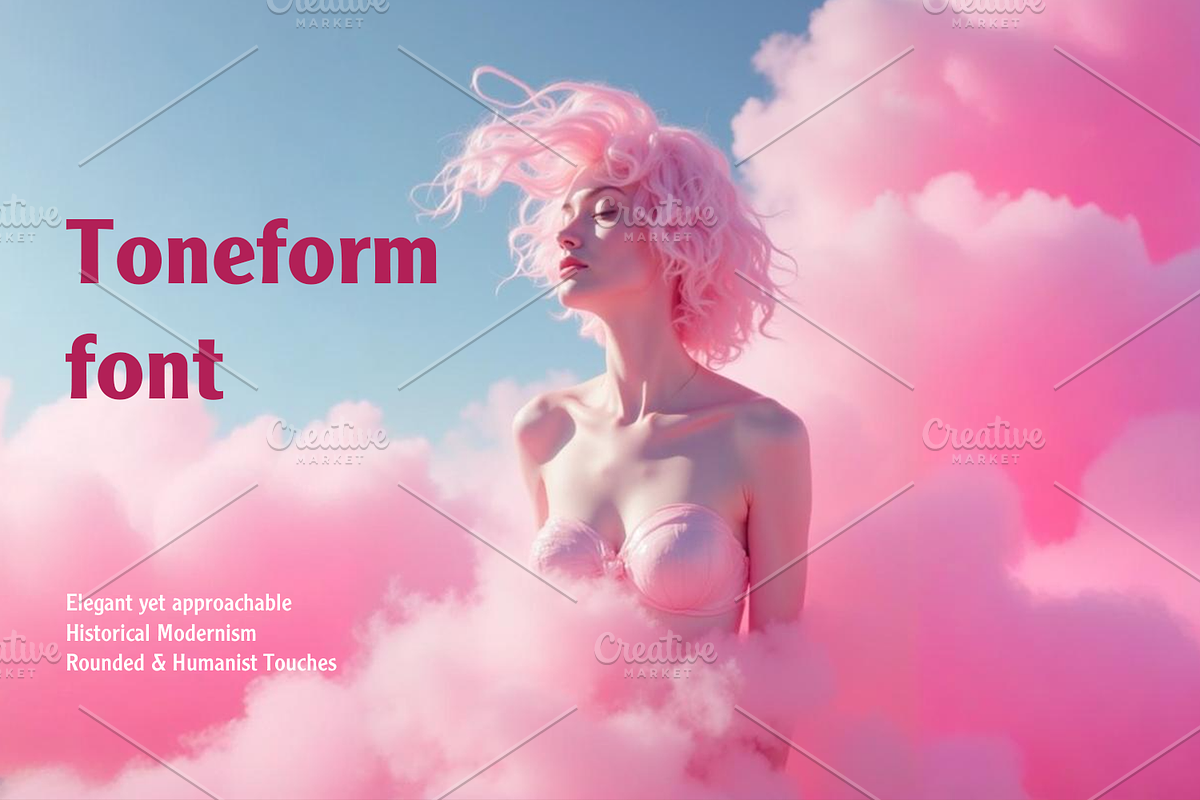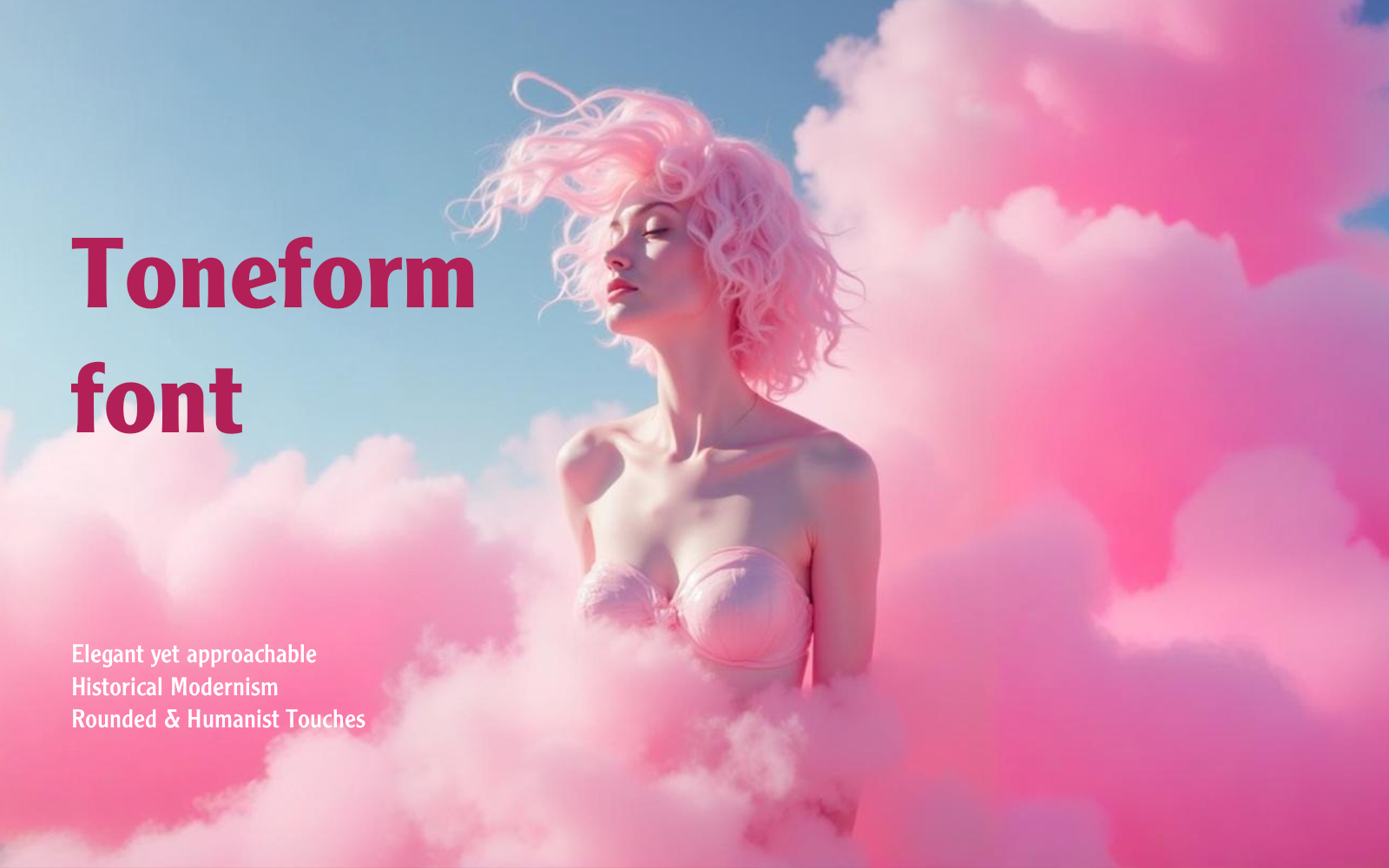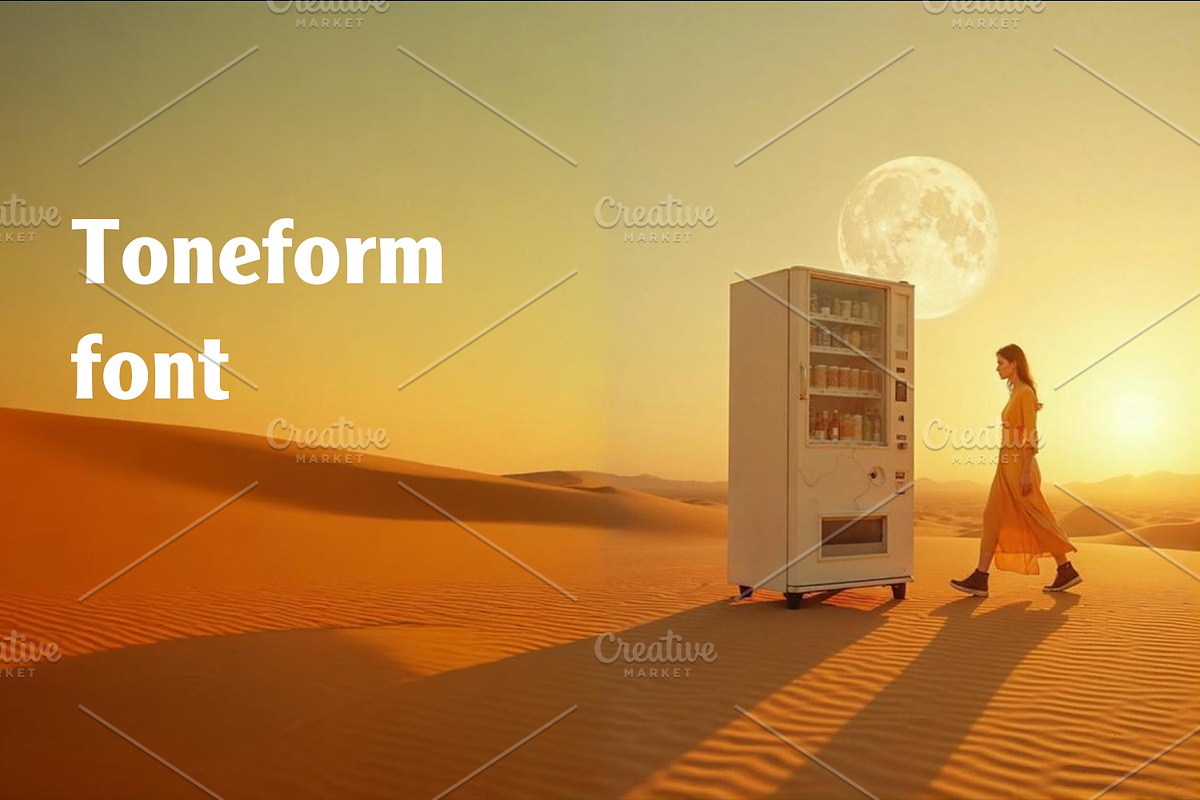
✦ Introducing Toneform — Where Tradition Refines the Modern Voice.
Rooted in typographic heritage and crafted for today's designers, Toneform delivers the perfect balance between timeless elegance and contemporary functionality.
With soft curves, open counters, and graceful proportions, this typeface brings warmth and clarity to:
📚 Editorial layouts 🧩 Brand identities 📱 Digital interfaces 🗞️ Headlines and content blocks Designed for clarity. Built for character.
🧠 Whether you’re designing a magazine, crafting a sleek portfolio, or leading a global brand Toneform is the voice of thoughtful sophistication. 3 weights